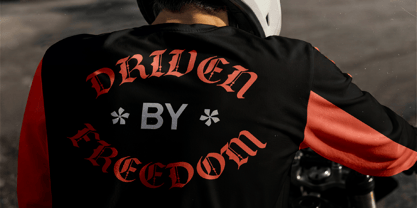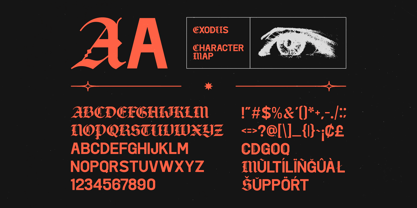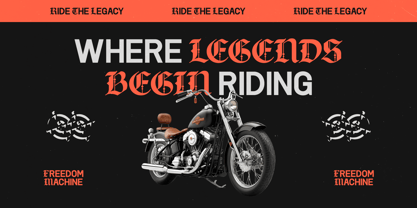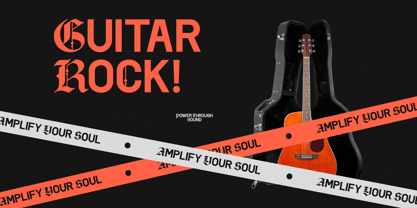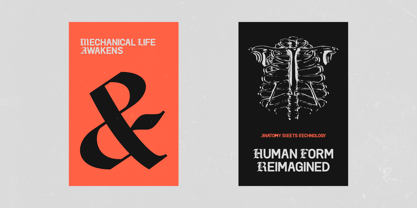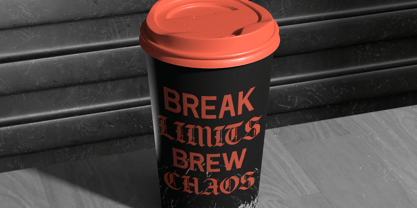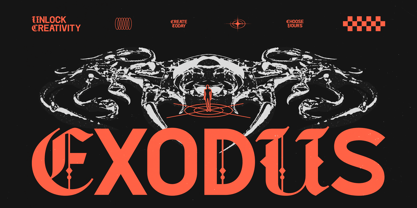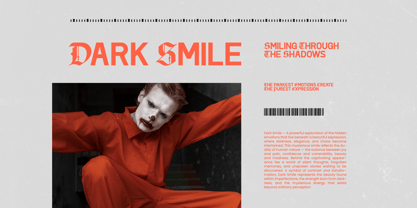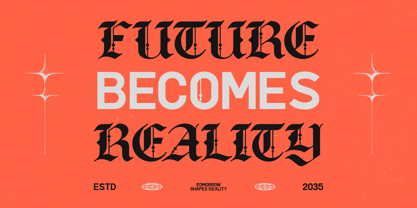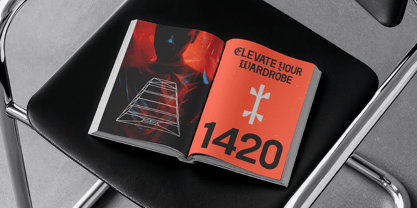
The Exodus Font Family was designed by Heru Utama Putra and published by Timelesstype Studio. Exodus contains 2 styles and family package options. More about this family
Command immediate attention with an unrivaled aesthetic powered by the Exodus - Blackletter Display Font, a powerhouse of modern gothic design and high-impact typography. This typeface redefines the traditional blackletter aesthetic by merging sharp geometric precision with an aggressive, contemporary edge. Perfect for creators looking to infuse their work with a rebellious spirit and unmistakable presence, it delivers a striking visual weight that is both authoritative and artistically refined.
Exodus